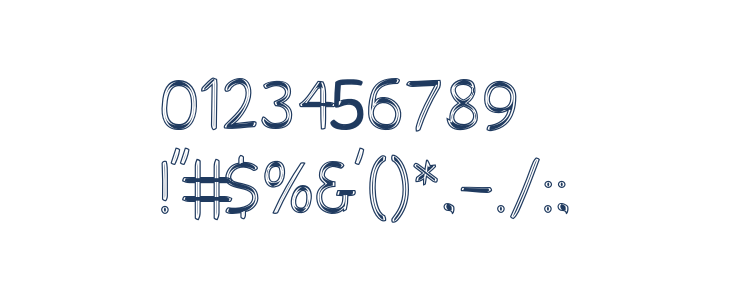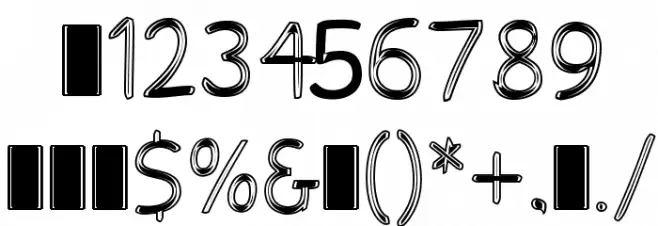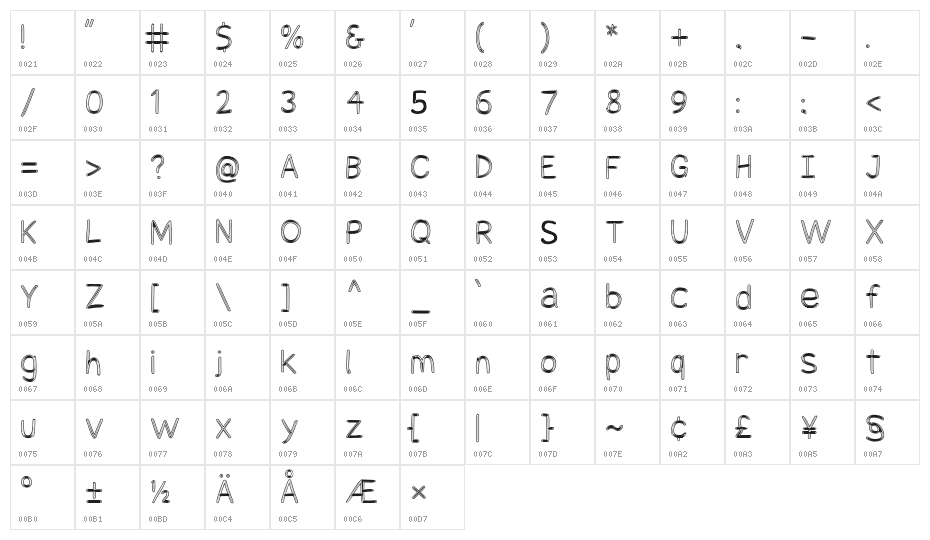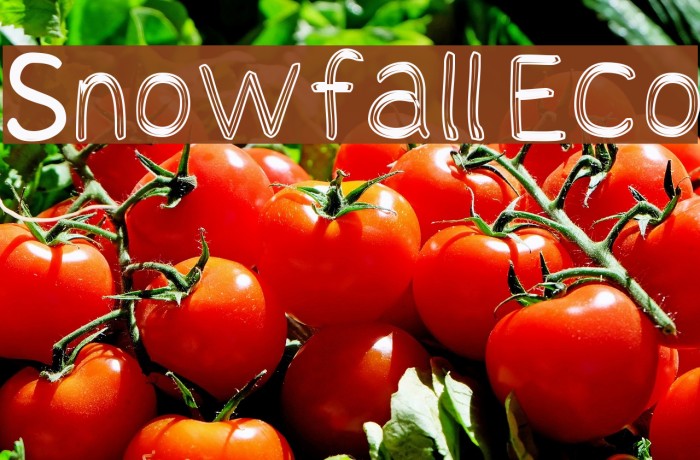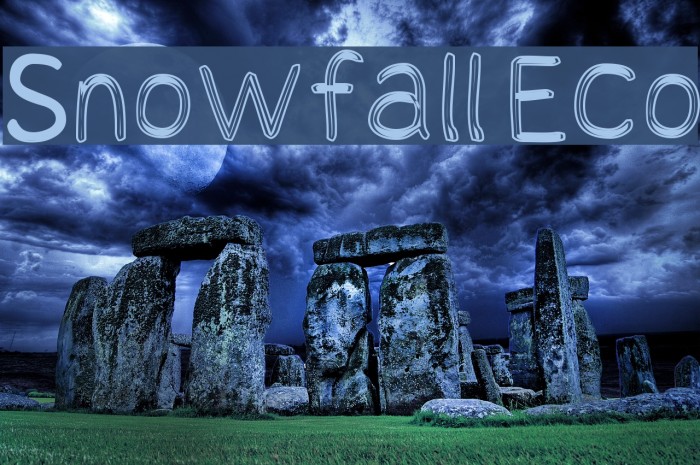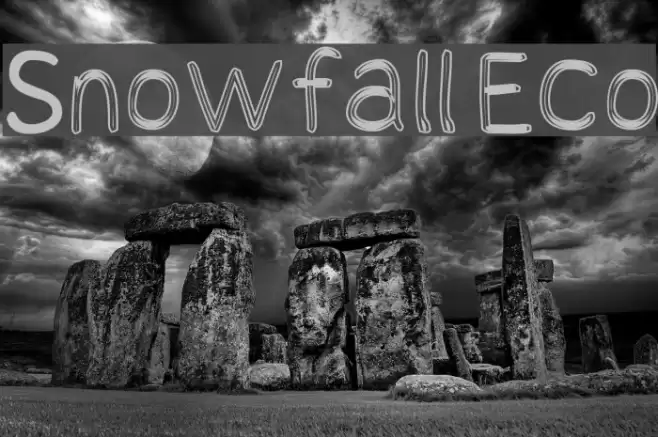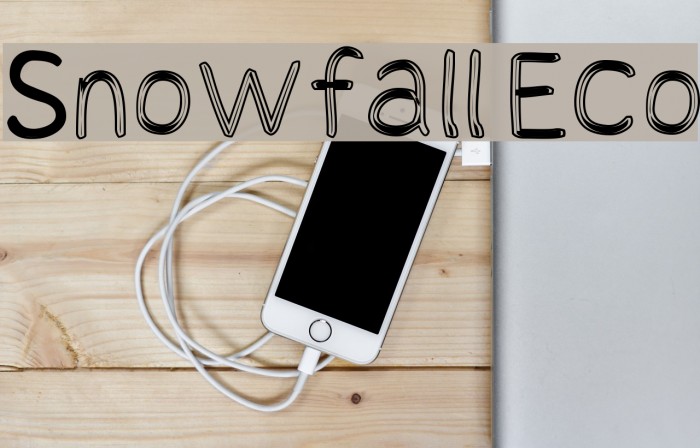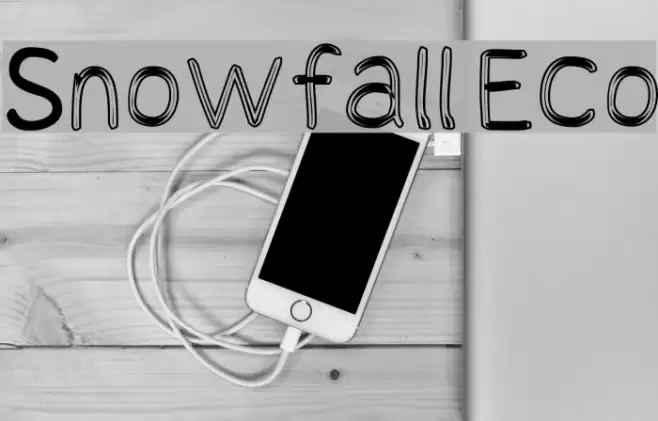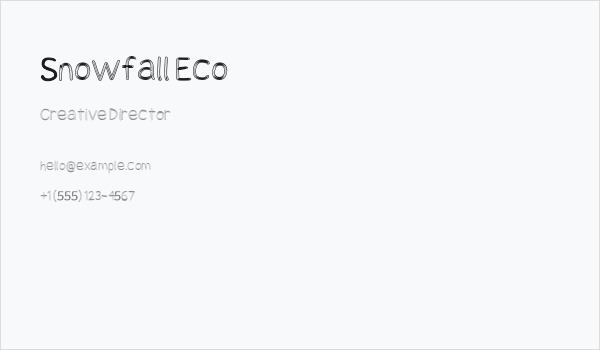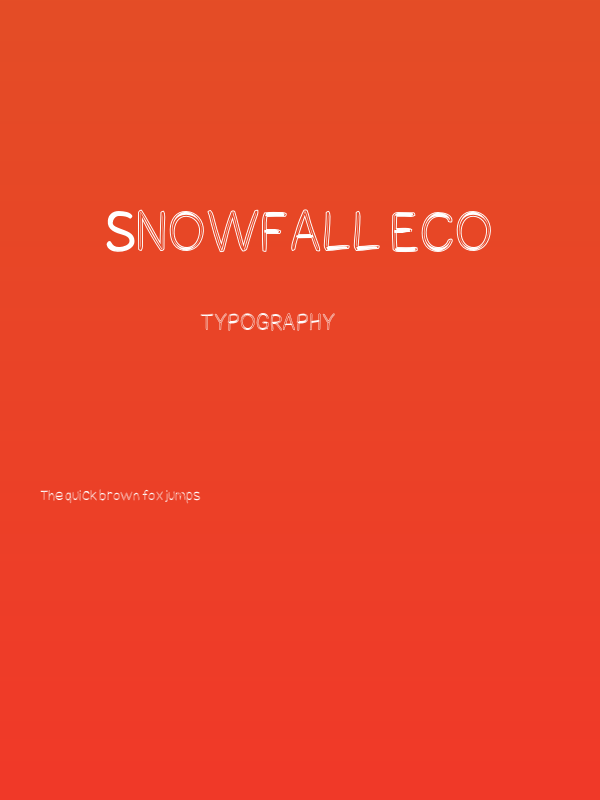
Snowfall Eco Font
Snowfall Eco Description
This font features a playful and whimsical design with a hand-drawn aesthetic. The letters are outlined with a bold, black stroke, giving them a cartoonish and lively appearance. Each character has a unique, slightly irregular shape, adding to the informal and friendly feel. The uppercase and lowercase letters maintain a consistent style, with rounded edges and a casual flair. The numbers and special characters follow the same design principles, ensuring a cohesive look across all elements. This font is perfect for projects that require a fun and approachable vibe.